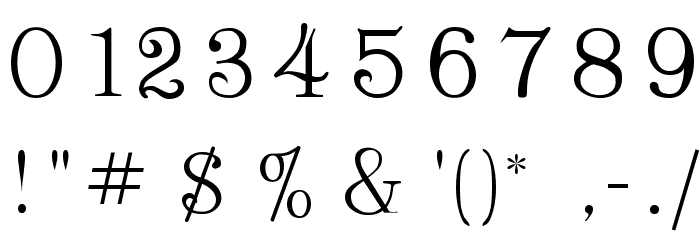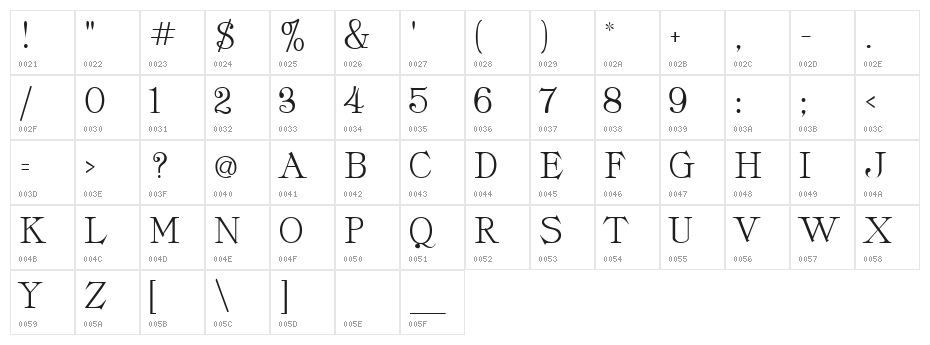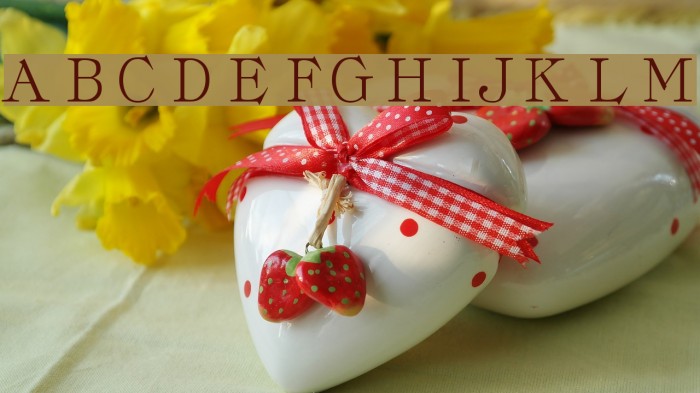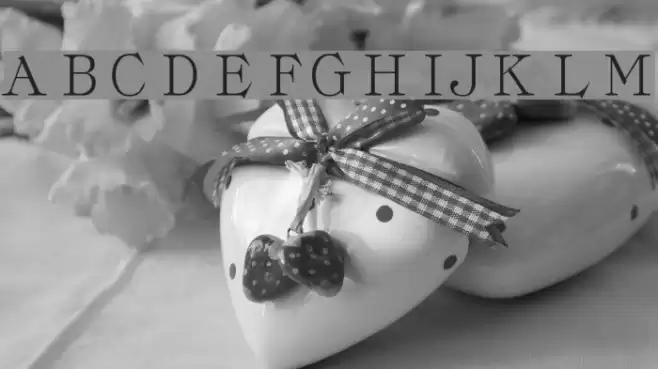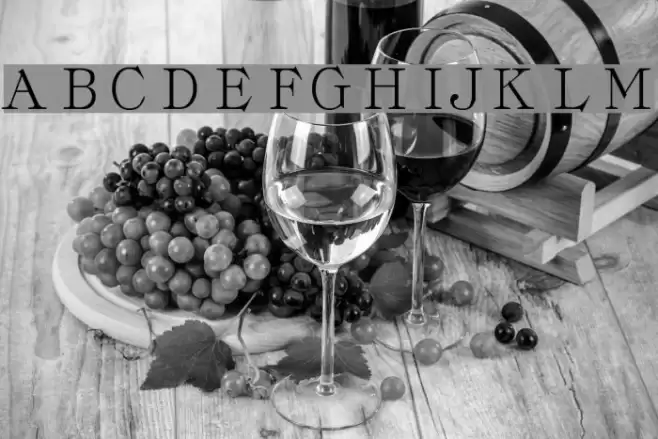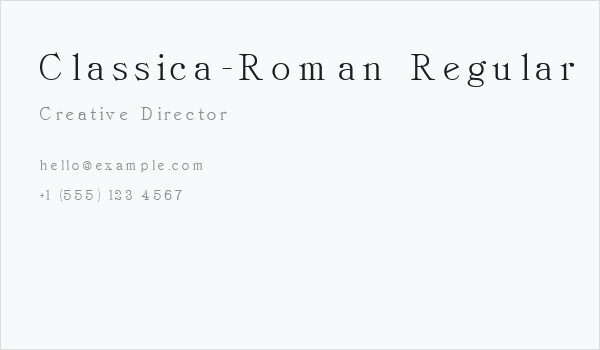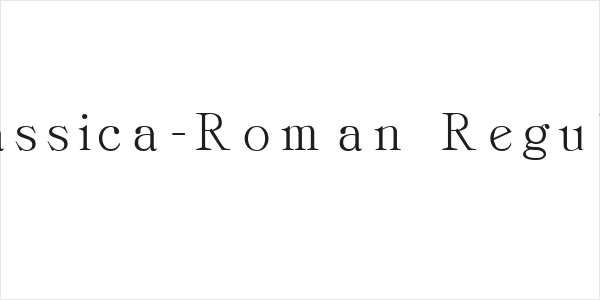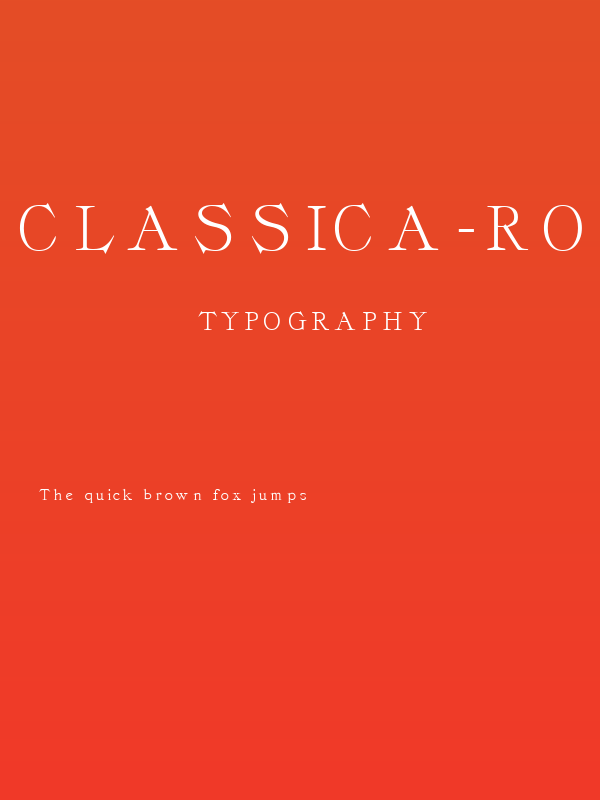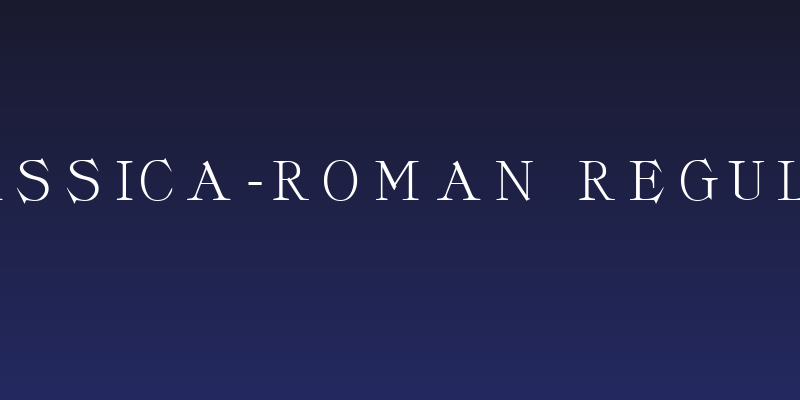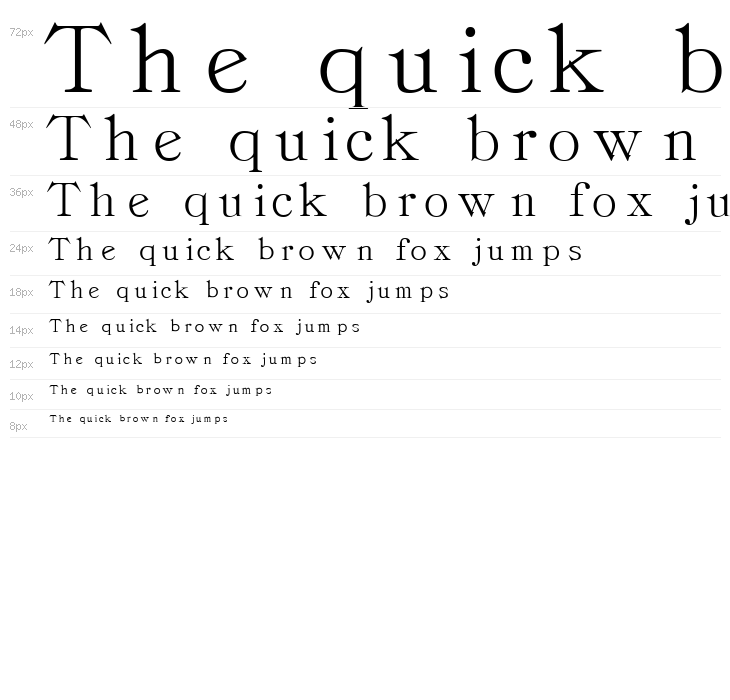
Classica-Roman Regular Font
Classica-Roman Regular Description
This font exudes a timeless elegance with its classic serif design. The characters are well-proportioned, featuring distinct serifs that add a touch of sophistication. The uppercase letters are bold and commanding, while the lowercase letters maintain a graceful flow. The numerals are clear and easy to read, making them suitable for various applications. Special characters are thoughtfully designed, maintaining the overall aesthetic of the font. The consistent stroke width and moderate contrast contribute to its readability, making it ideal for both print and digital media.